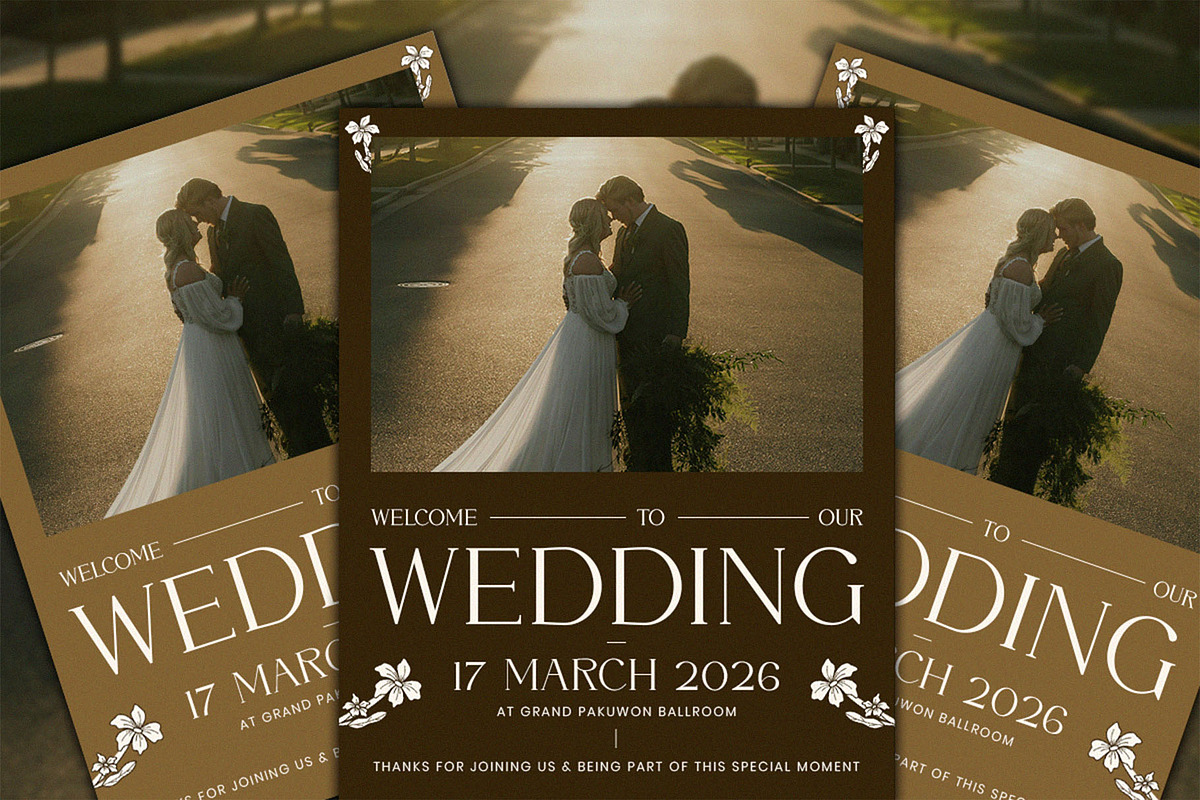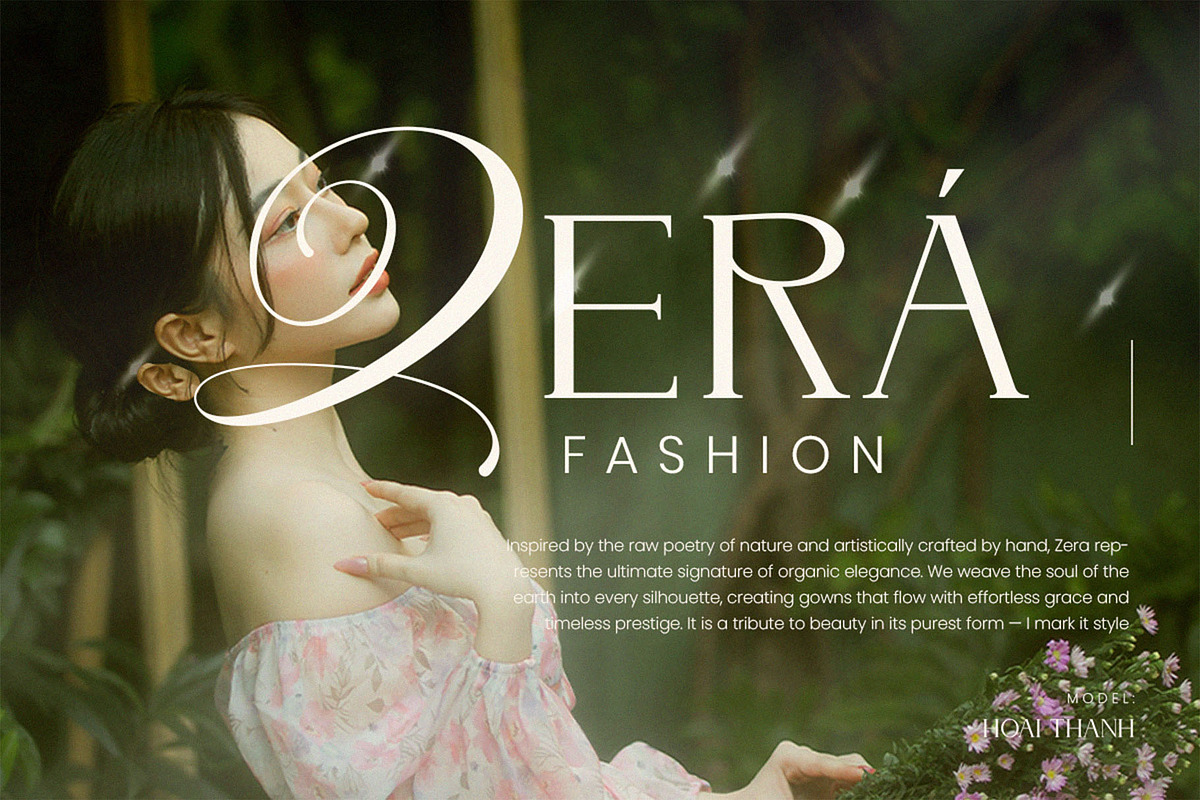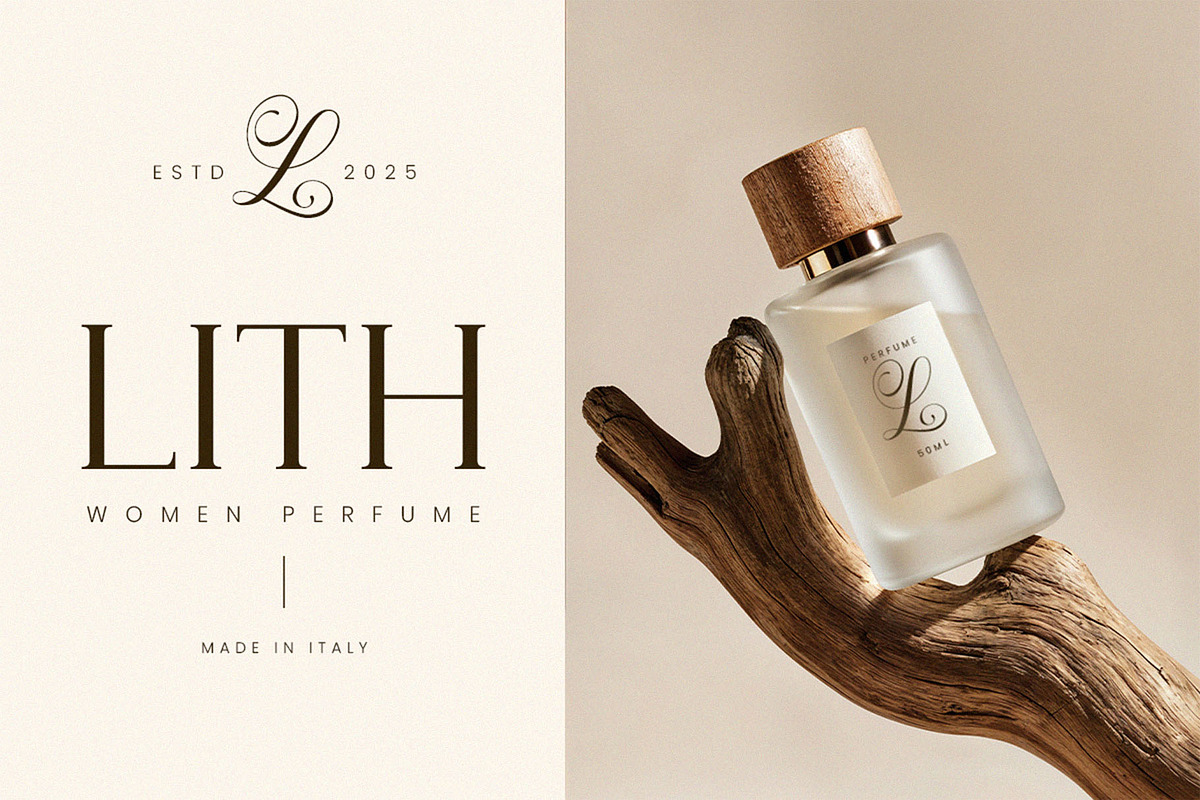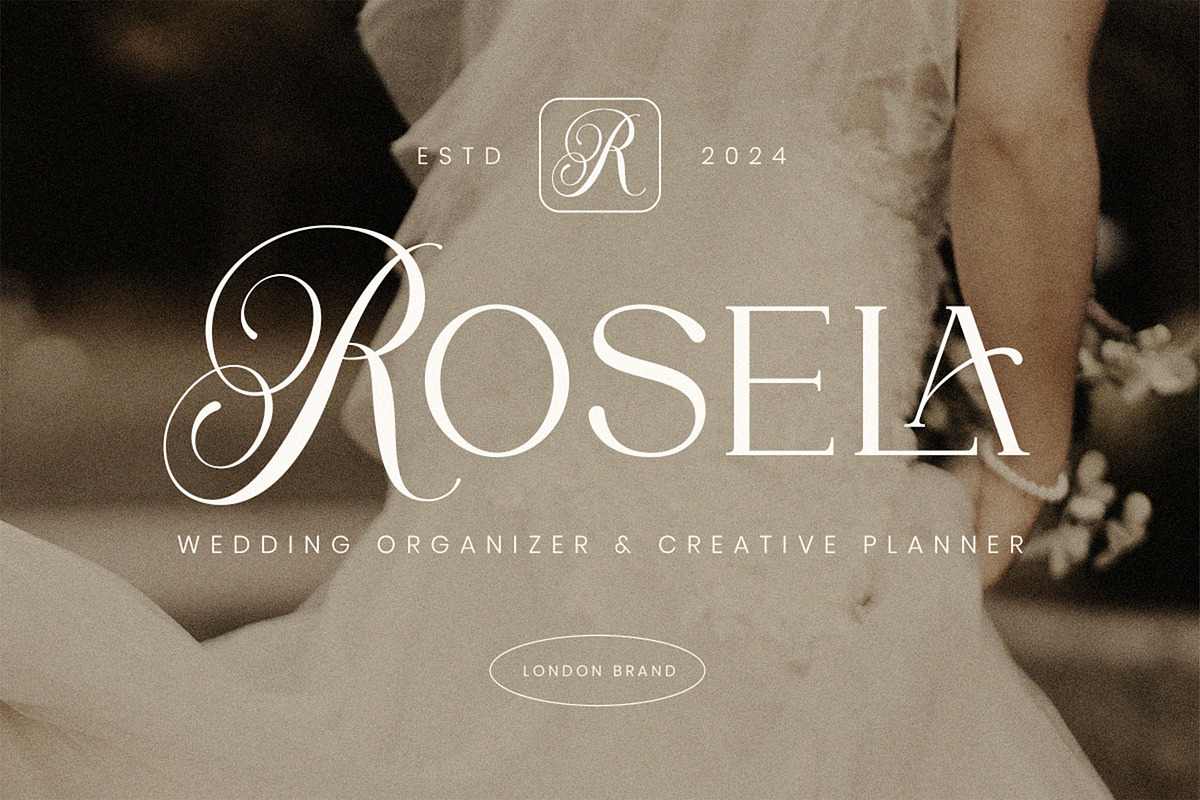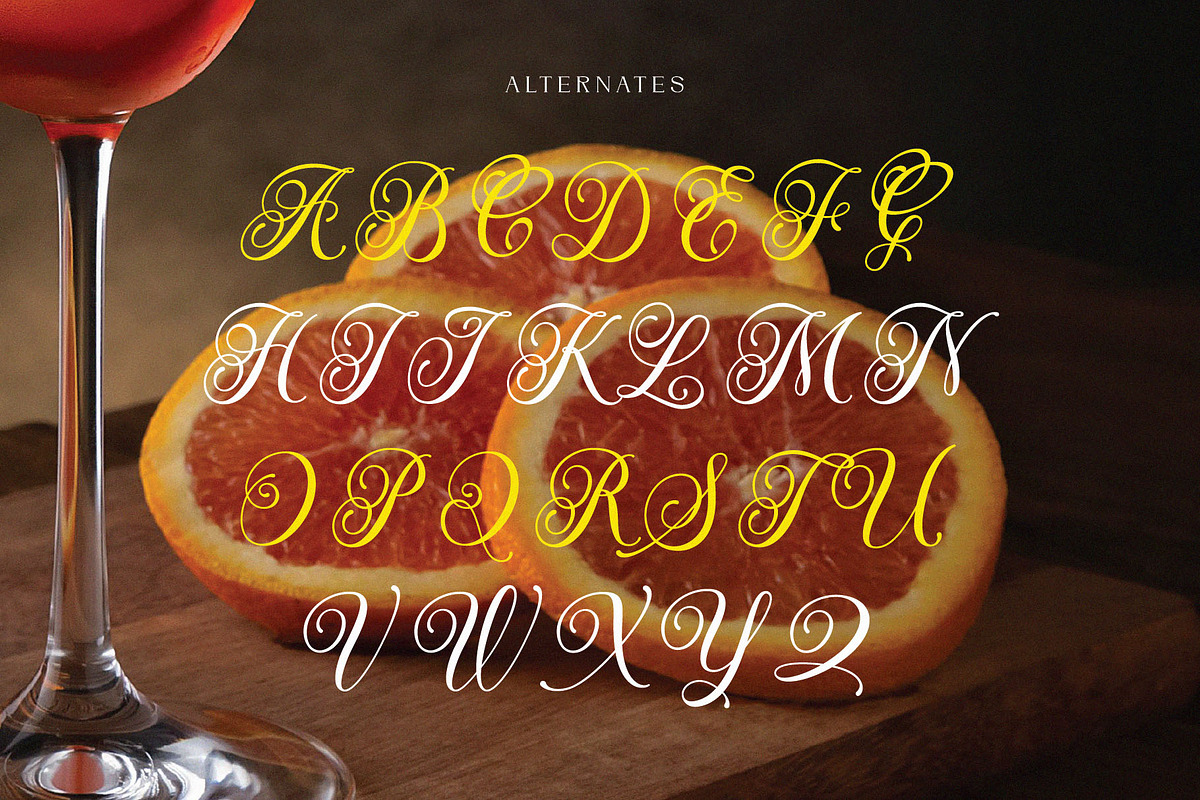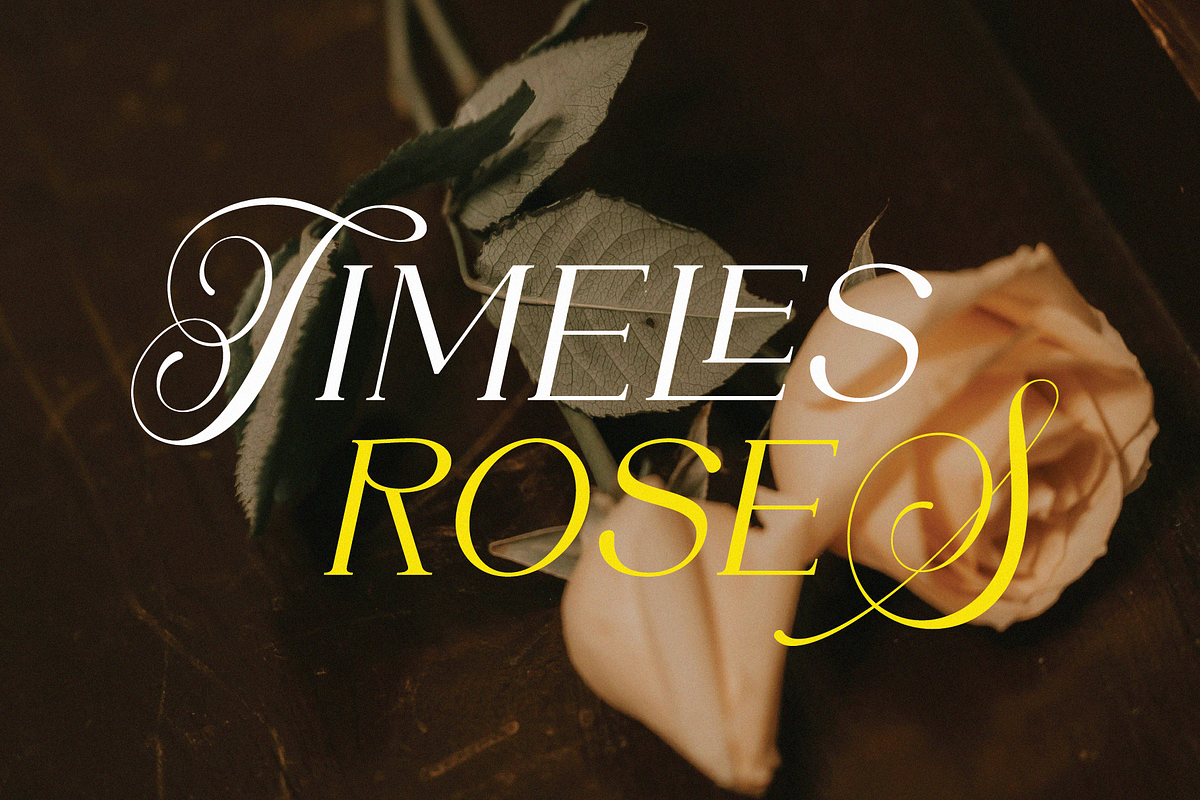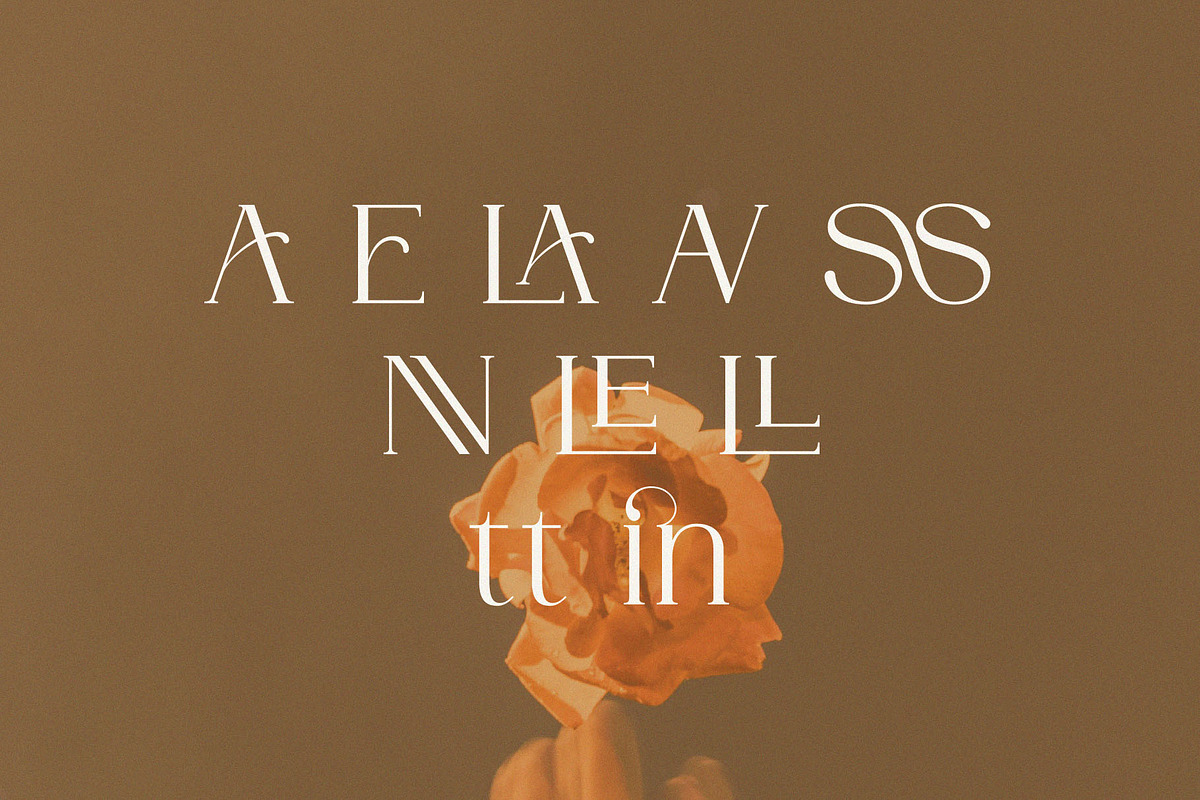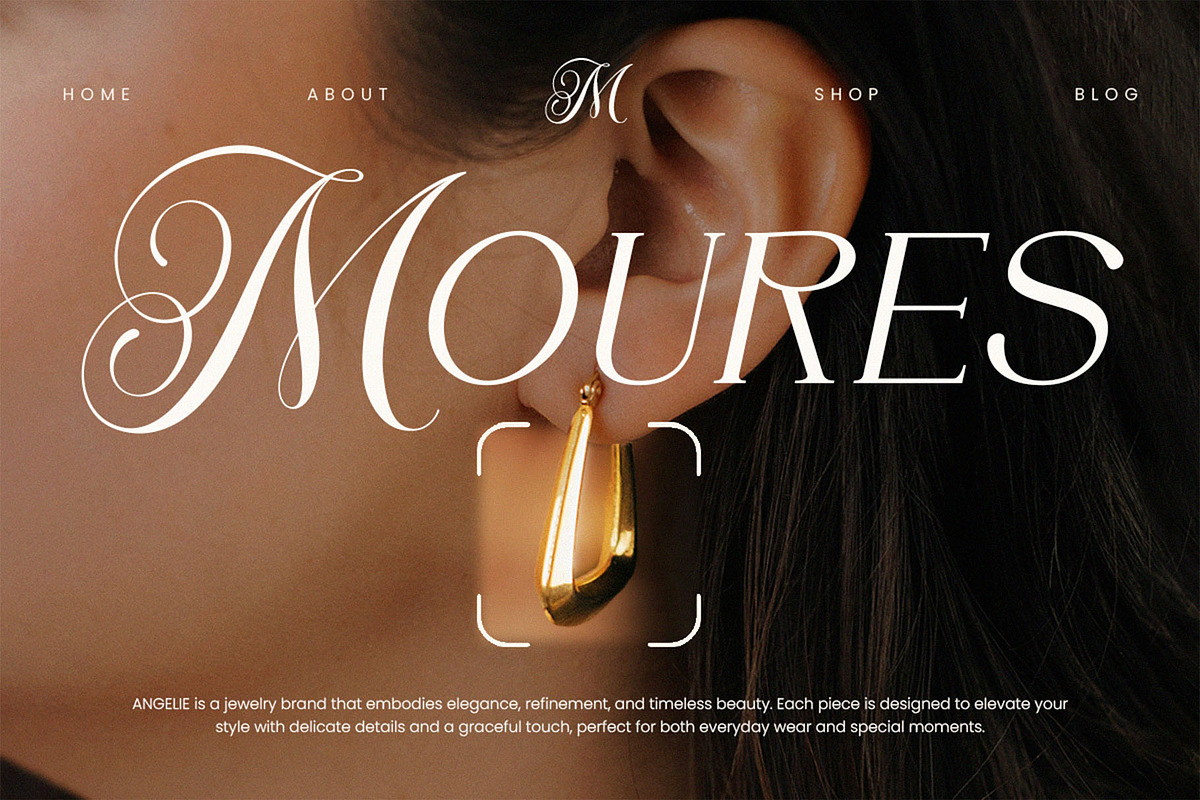
DENOVA // Elegant Luxury Font
Introducing Denova ,
A refined and luxurious font duo that blends a modern serif with an elegant flowing script. Designed to create sophisticated and timeless branding, Denova brings harmony between structure and softness in one beautifully balanced package. The serif stands tall with confident proportions and graceful contrast, while the script flows effortlessly with refined swashes and stylish details. Together, they create a versatile pairing perfect for high-end brand presentations. Whether you’re designing for beauty, fashion, wedding, or boutique brands, Denova helps you achieve a polished and elevated look with ease.
Why You’ll Love Denova,Elegant modern serif with luxurious contrast,Graceful script with beautiful swashes,Stylish alternates and ligatures,Perfect balance between bold presence and delicate charm,Easy to mix and match for stunning logo compositions Denova allows you to create layered typography without needing additional font pairings making your design process faster and more cohesive. Perfect For Beauty & skincare branding,Luxury logo design,Wedding invitations,Boutique packaging,Editorial layouts,Social media templates,Branding projects
- Alternates & ligatures
Denova is crafted for designers and brand owners who want their work to feel elegant, confident, and timeless. If you're creating a brand that values sophistication and refined aesthetics, this font duo will elevate your visual identity effortlessly. Please feel free to contact us if you have any questions, we are happy to help. Have fun creating with Denova!